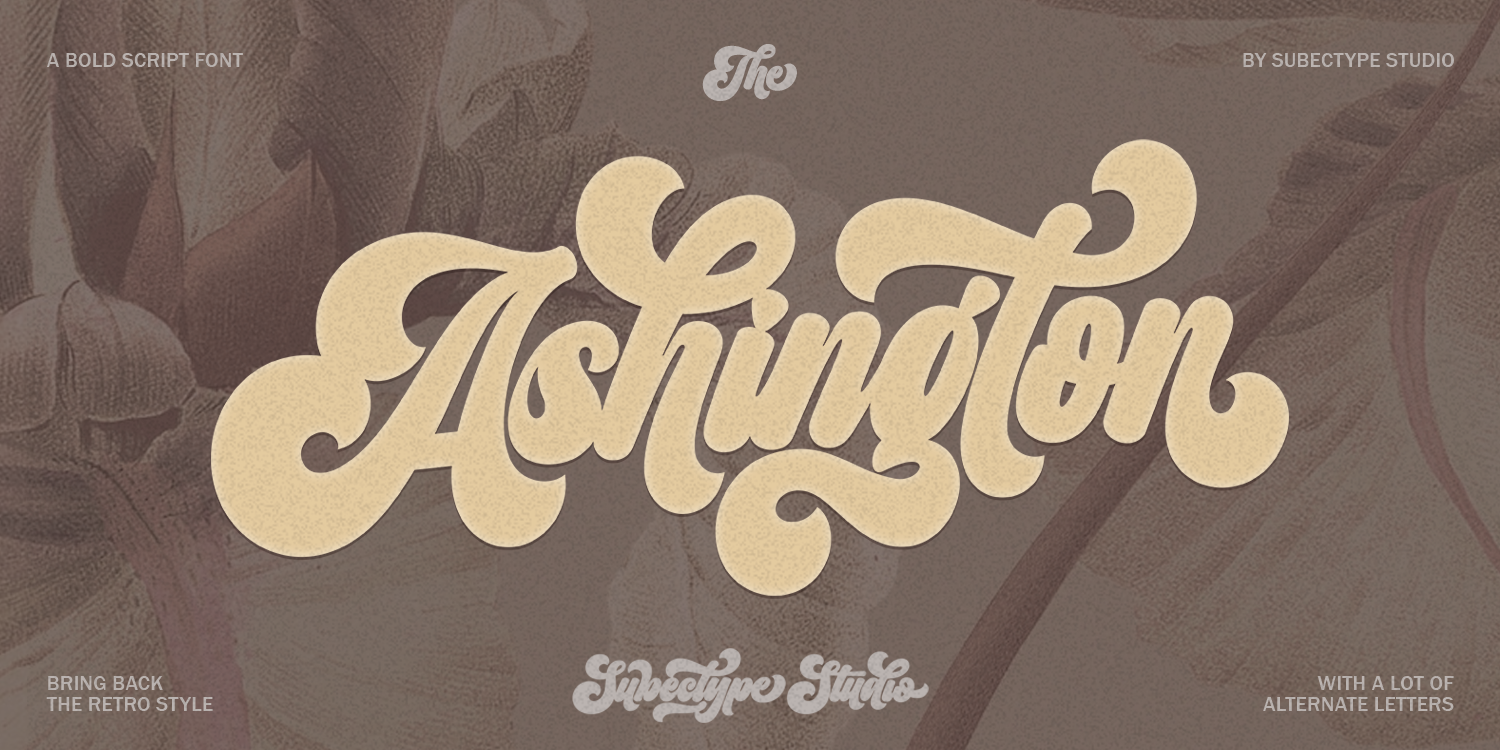
The Ashington Font excels in various design applications including established family business branding, heritage community communications, traditional craftsman identities, distinguished township signage, classic residential developments, seasoned professional services, enduring institutional materials, reliable local business marketing, generational legacy projects, and trustworthy civic organizations that demand established credibility and community sophistication.
What makes the Ashington Font exciting is its embodiment of established heritage and community trust through letterforms that capture the essence of time-tested reliability and deep-rooted tradition. This typeface demonstrates exceptional stability through carefully crafted characters that suggest the solid foundation of established communities, the wisdom of experience, and the enduring values that build lasting relationships between businesses and their neighbors. The font's community personality makes it perfect for local organizations and family businesses seeking to communicate generational trust, neighborhood values, and the kind of established reputation that comes from years of faithful service through typography that reflects the stability and reliability of well-established community institutions.
The Ashington Font family typically includes reliable weight variations that enhance the established aesthetic, featuring traditional proportions and extended character sets that support diverse community communication needs. These family options often include heritage-inspired alternates, community symbols, and established decorative elements that provide designers with comprehensive tools for creating authentically trustworthy typography that honors local traditions while maintaining contemporary accessibility and professional credibility.
Local business owners and community organizations consistently select Ashington Font Free Download for projects requiring typography that establishes neighborhood credibility and communicates generational reliability. This typeface delivers exceptional performance in local marketing, community communications, and heritage branding where demonstrating established roots and building trust through proven track record is essential for community support. The font's established character makes it particularly effective for civic and family business applications. Download Ashington Font Free Download today to access this trustworthy typeface that transforms community communications with its established reliability and heritage sophistication, creating compelling neighborhood experiences that honor the values of established community life while maintaining the professional presentation that builds lasting trust and generational loyalty.